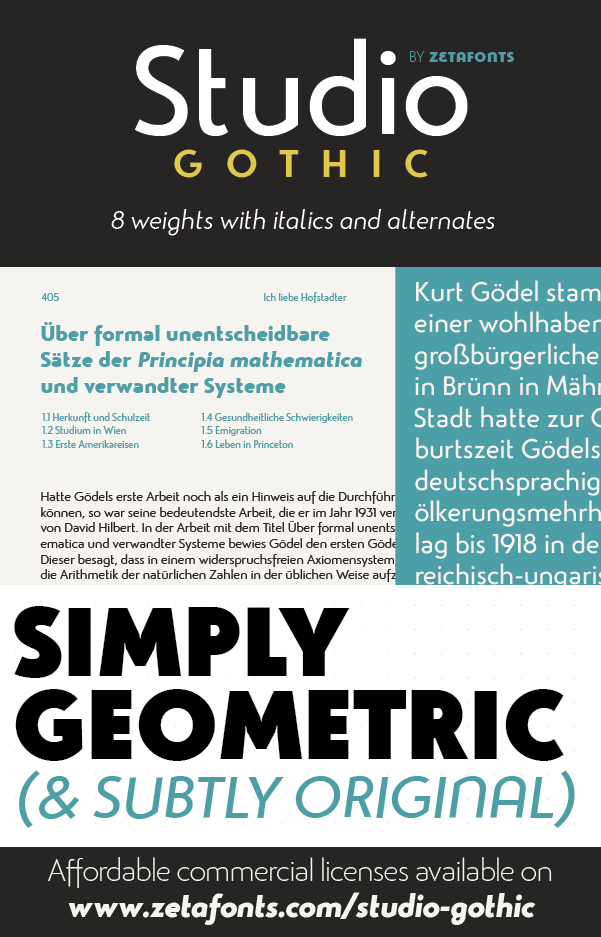
Font name: | Studio Gothic |
Studio Gothic is a geometric sans typeface designed by Andrea Tartarelli of Zetafonts with Cosimo Lorenzo Pancini and Francesco Canovaro. It takes inspiration from the ideas used by Alessandro Butti for his historical typeface Semplicità created in the thirties. --- This font is TOTALLY FREE for NONCOMMERCIAL USES. For commercial uses you must get a license at: http://www.zetafonts.com/studio-gothic Have a question?: info@zetafonts.com |